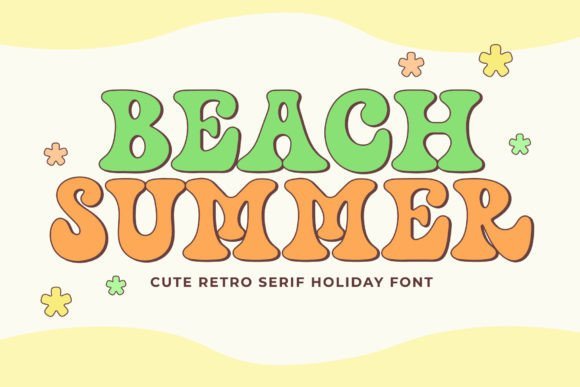
Summer Vibes in Every Letter
There’s nothing quite like the feeling of sand between your toes and the sound of seagulls in the distance. For designers, that feeling can be captured in a single font – the Beach Summer Font. This charming retro serif font is the perfect addition to any project that screams summer fun.
With its bold and playful style, the Beach Summer Font is ideal for projects that need a dash of nostalgia and whimsy. Whether you’re creating a holiday brochure, a summer-themed t-shirt design, or a birthday invitation, this font is sure to bring a smile to your audience’s faces. As a designer, having access to versatile fonts like the Beach Summer Font can be a game-changer, offering endless possibilities for creative expression and style.
Beach Summer Font Key Features
- Font Family: Beach Summer Font
- Unique Characteristics:
- Hand-drawn, beach-inspired design
- Perfect for summer-themed projects, beachwear, and resort branding
- Includes 8 styles: Regular, Italic, Bold, Bold Italic, Light, Light Italic, Outline, and Shadow
Designer Review: Beach Summer Font
At first glance, Beach Summer Font seems like the perfect choice for your summer-themed projects. The font’s ✨ airy feel and soft curves immediately evoke the feeling of a relaxing day at the beach.
- ✨ Unique letterforms that add a touch of whimsy to your design.
- ✨ Friendly and approachable feel, perfect for casual projects.
- ✨ High legibility even at smaller font sizes.
However, as I dug deeper, I found some limitations that might affect your design decisions.
- ⚠️ Limited font sizes – the font’s unique letterforms start to lose their charm at larger font sizes.
- ⚠️ Not suitable for formal projects – the font’s casual feel might not be suitable for professional or corporate designs.
- ⚠️ Limited language support – the font might not display correctly for non-English languages.
Beach Summer Font is a great choice for casual, summer-themed projects. However, it’s essential to consider its limitations before making a final decision. With the right project in mind, this font can add a touch of warmth and personality to your design.
Use “Beach Summer Font” to create eye-catching designs for summer-themed projects, such as beach party invitations, summer vacation posters, and pool party flyers.
Pair the font with bright and colorful graphics, such as suns, beach balls, and palm trees, to create a fun and festive atmosphere.
Experiment with different font sizes, colors, and combinations to create unique and creative designs.
Beach party invitations
Alternatives to Beach Summer Font
Pacifico is a beautiful, elegant script font that resembles the Beach Summer Font in its relaxed and casual feel. It’s ideal for use in wedding invitations, greeting cards, and any design that requires a touch of sophistication. Pacifico is more polished and refined compared to Beach Summer Font, making it suitable for formal events and high-end branding.
Great Vibes is a modern, cursive script font that shares similarities with Beach Summer Font in its playful and carefree nature. It’s perfect for use in travel brochures, event promotions, and social media graphics that require a fun and energetic vibe. Great Vibes is more versatile than Beach Summer Font, with a wider range of uses in various design projects.
Carolyna Pro is a sophisticated, elegant script font that, like Beach Summer Font, exudes a sense of relaxation and leisure. It’s ideal for use in high-end branding, luxury packaging, and any design that requires a touch of elegance and sophistication. Carolyna Pro is more refined and polished compared to Beach Summer Font, making it suitable for formal events and premium products.